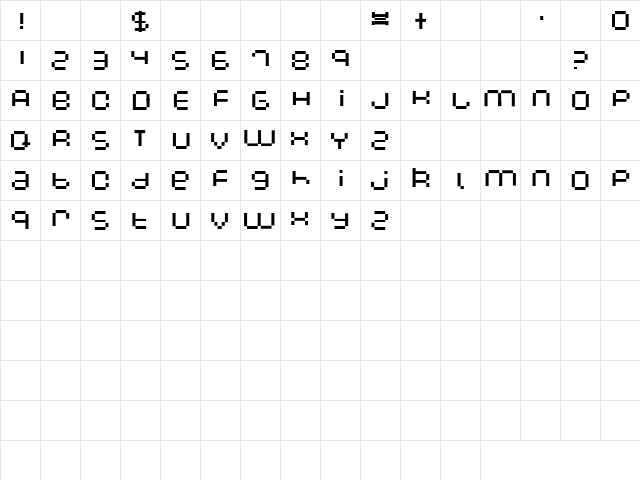
Monkey Wrench Regular
Design Context for Monkey Wrench Typeface
Monkey Wrench is a composed and adaptable typeface that performs quietly and consistently across a wide range of design contexts.